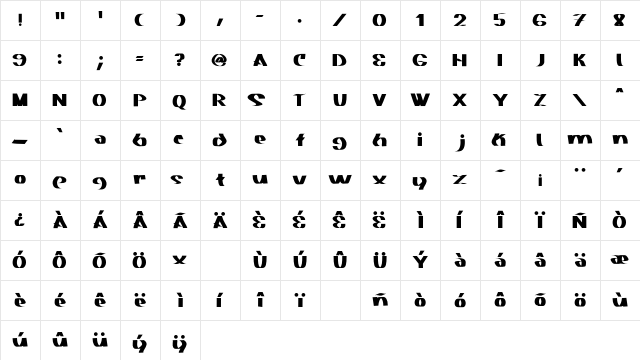
Akasic Medium
Akasic Family
Akasic Medium
Design Context for Akasic
Akasic is a composed and adaptable typeface that performs quietly and consistently across a wide range of design contexts.